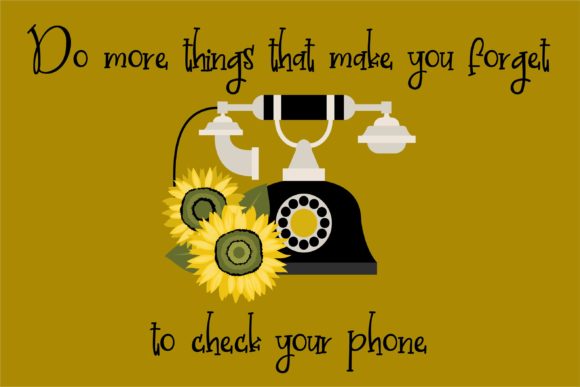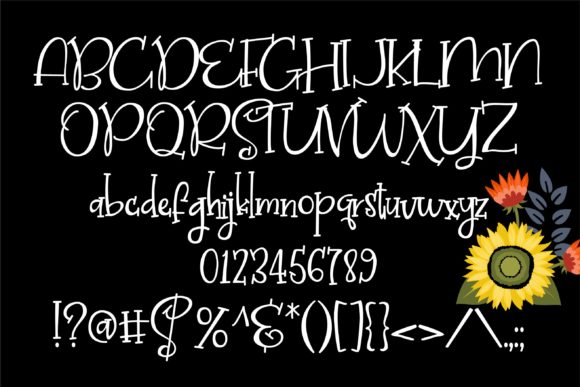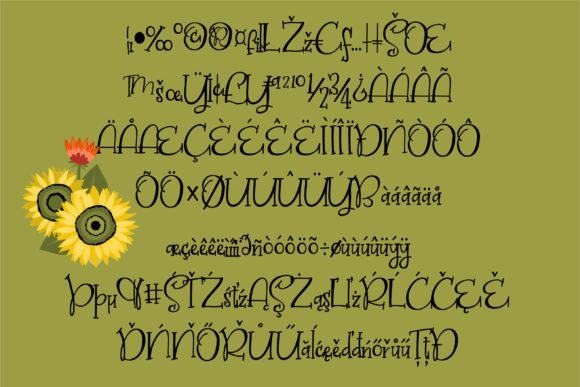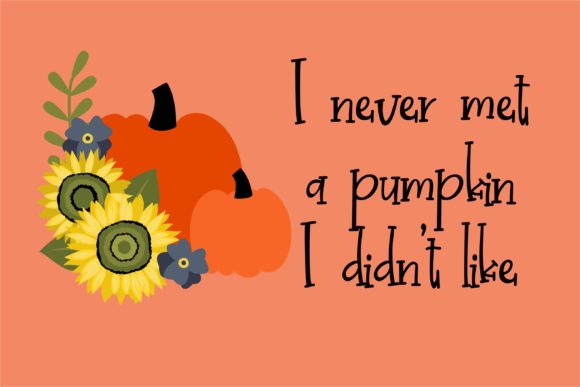
Unleash the Timeless Charm of Your Designs
Have you ever been working on a design project and suddenly, a spark of inspiration hits you? You envision a beautiful, elegant layout that exudes a sense of sophistication and timelessness. That’s exactly what happens when you incorporate the right font into your design.
Enter the Bellinghaus Font, a stunning handwritten serif font that adds a touch of classic charm to any design. Its beautiful look and feel make it perfect for creating a sense of nostalgia and warmth in your projects. Whether you’re designing a wedding invitation, a logo, or a marketing brochure, the Bellinghaus Font is an excellent choice to add a personal touch.
For designers, the Bellinghaus Font is a valuable asset in their toolkit. Its unique character and style allow them to express their creativity and bring their ideas to life in a more engaging and memorable way. By incorporating this font into their designs, they can create a lasting impression on their audience and leave a lasting impact.
Bellinghaus Font Key Features
- Font Size: Multi-language support with over 1000 glyphs
- Resolution: Supports high-resolution displays (Retina and HD)
- Unique Characteristics: Unique and elegant design, perfect for luxury brands and high-end applications
- Language Support: Supports multiple languages, including Latin, Cyrillic, and Greek scripts
- Kerning and Ligatures: Includes advanced kerning and ligature pairs for professional typesetting
Bellinghaus Font Review
Overall, I think the Bellinghaus font is a solid choice for any design project. Here are some things that work well:
- ✨ Elegant and sophisticated look: The Bellinghaus font has a classic, high-end feel that makes it perfect for luxury branding, fine art, and other high-end design projects.
- ✨ Excellent readability: Despite its ornate details, the font is surprisingly easy to read, making it a great choice for body text as well as headings.
- ✨ Versatility: The Bellinghaus font comes in a range of weights and styles, making it easy to find the perfect version to suit your design needs.
- ⚠️ Limited character set: The Bellinghaus font has a relatively small character set, which may limit its use for certain languages or characters.
- ⚠️ Not suitable for sans-serif designs: The Bellinghaus font is a serif font, and it may not be the best choice for designs that require a sans-serif look.
Overall, I would recommend the Bellinghaus font to designers who are looking for a high-end, elegant font for their projects. While it may not be the best choice for every design, it’s a great option for luxury branding, fine art, and other high-end design projects.
Tips for Getting the Most Out of Bellinghaus Font
Use the Bellinghaus font for headings and titles to add a touch of elegance and sophistication.
Pair the font with a clean and minimalist design to create a visually appealing contrast.
Experiment with different font sizes and styles to create a unique and eye-catching design.
Use the Bellinghaus font for:
Brand identities and logos
Business cards and letterheads
Magazine and newspaper articles